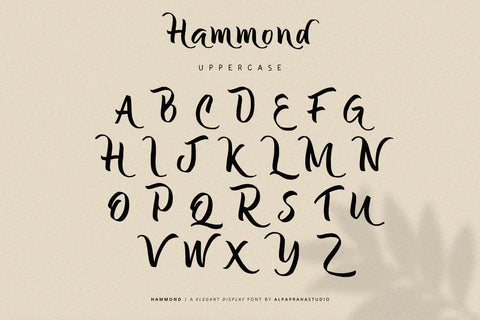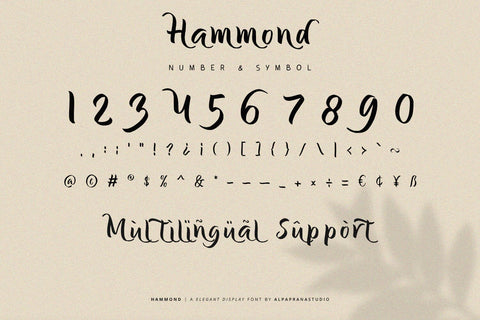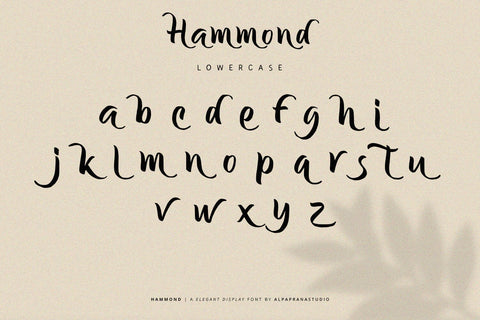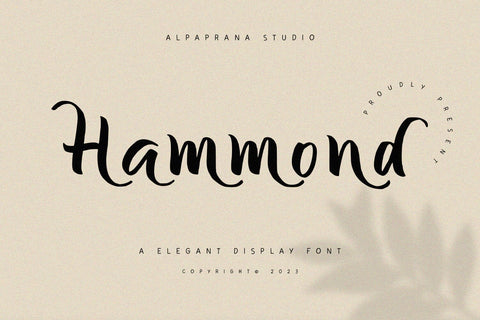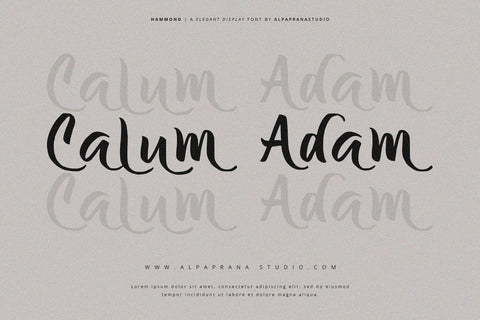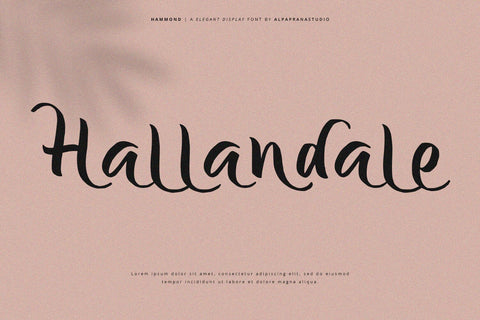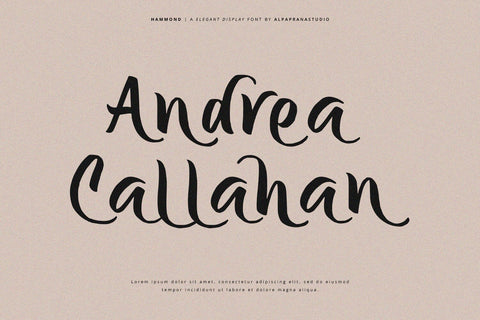
Hammond - Elegant Display Font
Hammond is a elegant display font with modern and stylish feels. It will be perfectly used for Branding, Logo Design, Lettering, Logotype, Clothing, Poster, magazine, packaging, posters, shopping bags, t-shirts, book covers, photography, special events and other design project.